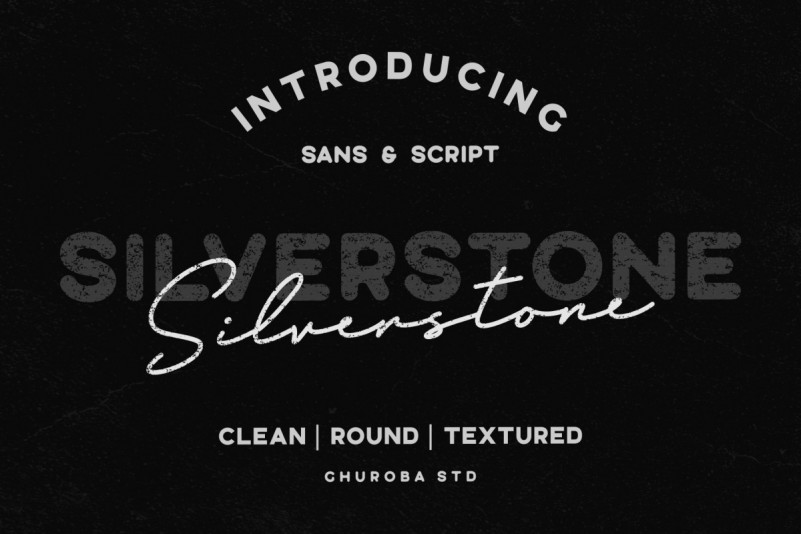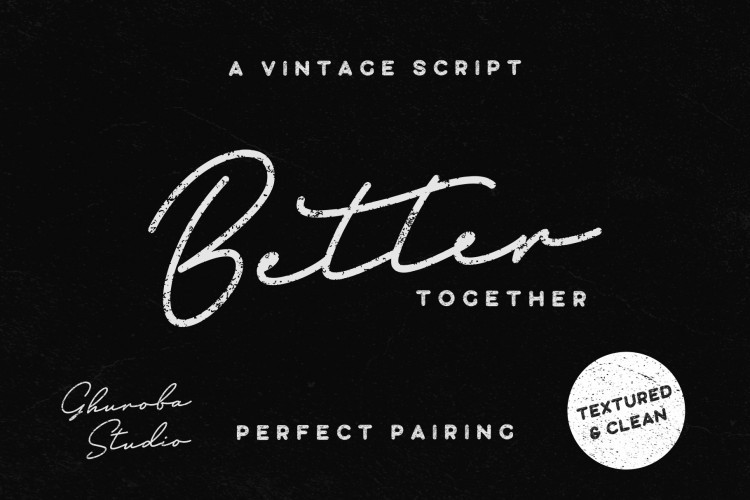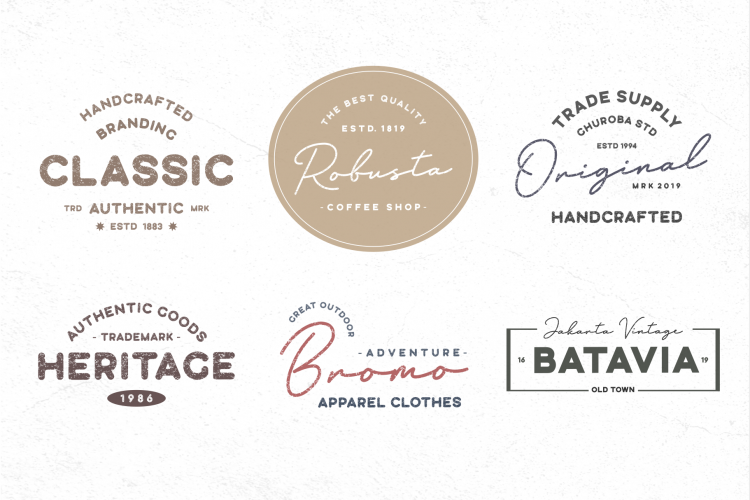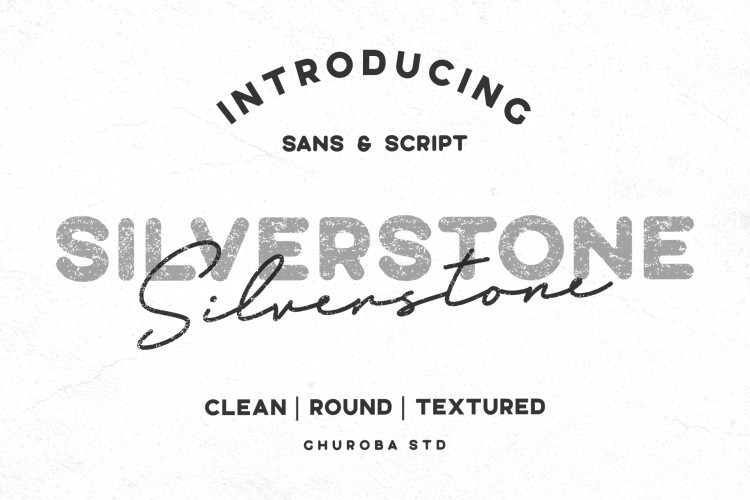
The Silverstone Font Collection
Thank you for looking The Silverstone Script Font. It’s a lovely decorative font family containing script and sans styles. Get motivated by its modern appeal! Have a look through the previews above to get inspired with what you can make and to get those creative juices flowing. Perfect for many design projects such as logo design, branding, blog graphics, stylizing quotes, wedding stationery, art prints, collateral design, packaging, social media, and so on.